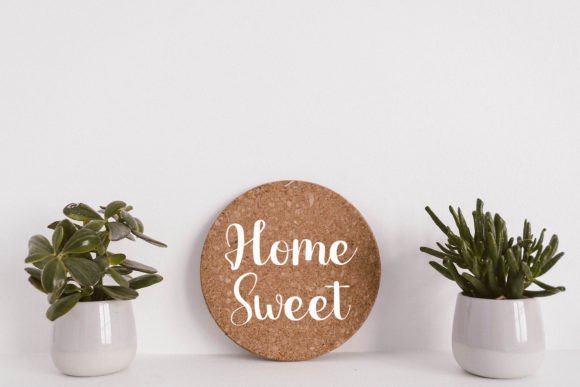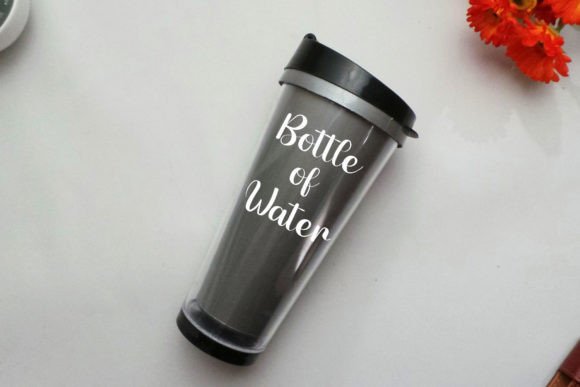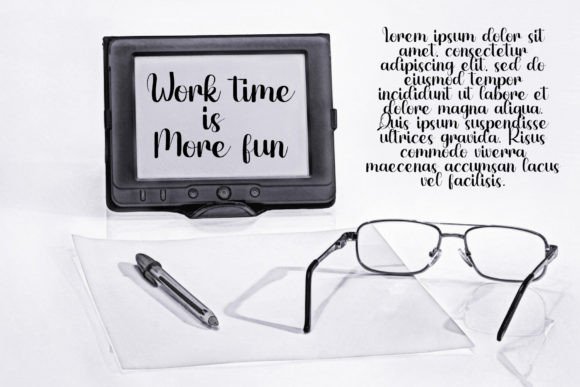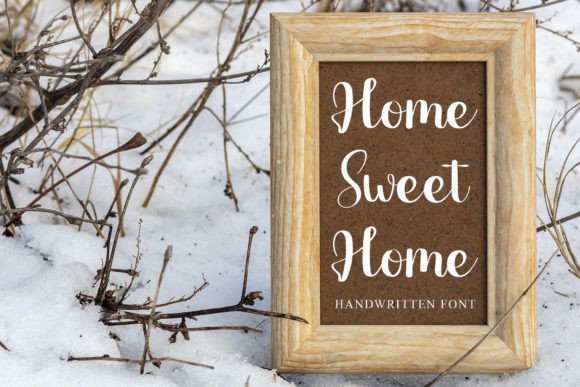
About Shark Font
Shark is a unique and elegant font, meticulously designed with a professional touch, exclusively crafted for your creative projects. Tailored for versatility, this font is perfect for your work projects, greeting cards, wedding invitations, birthdays, and various types of parties. Additionally, it proves to be suitable for your creative ideas in school assignments or other important events.
The distinctiveness and elegance of Shark make it an ideal choice to enhance the visual appeal of your designs. Whether you’re working on formal documents, celebratory invitations, or creative assignments, this font adds a touch of sophistication.
Imagine applying Shark to wedding invitation cards, where its uniqueness and elegance complement the special occasion. Envision it enhancing the aesthetics of birthday party invitations or other celebratory materials. Whether used digitally or in print, Shark is designed to elevate the overall presentation of your creative ideas.
In summary, Shark is more than just a font; it’s a creative tool crafted to bring uniqueness and elegance to your projects. Apply it with your creative ideas to enhance the visual impact, adding a professional and refined touch to your work.